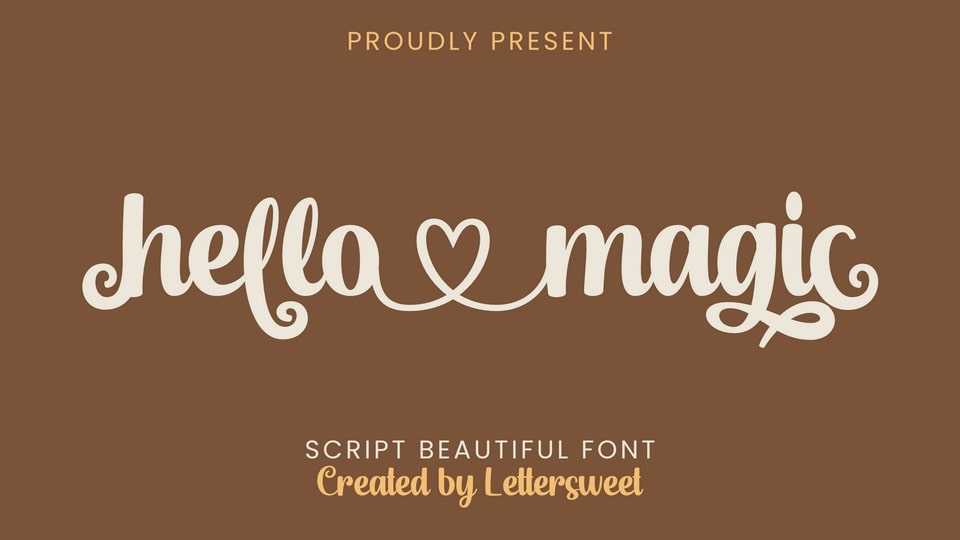
Download Hello Magic font, an exquisitely scripted typeface harboring a wealth of alternative styles, creating an endless panorama of design possibilities.